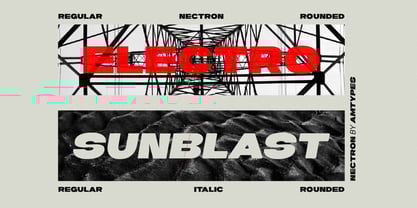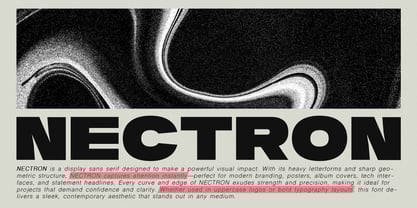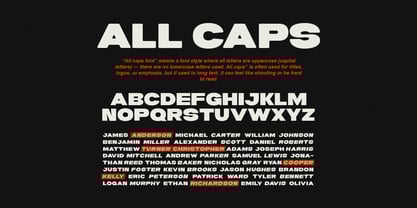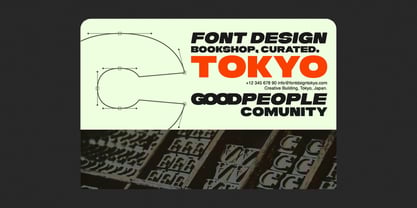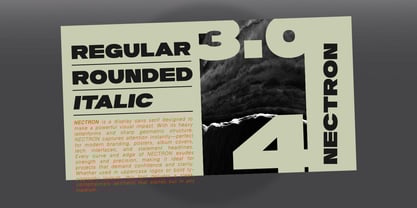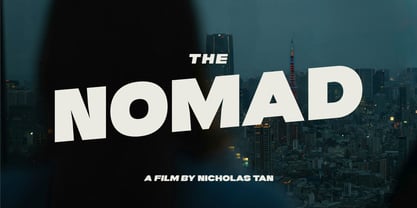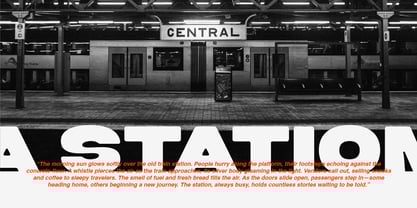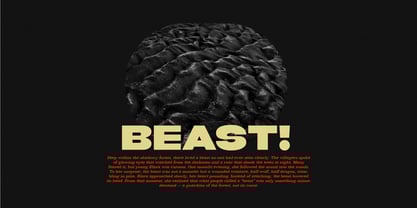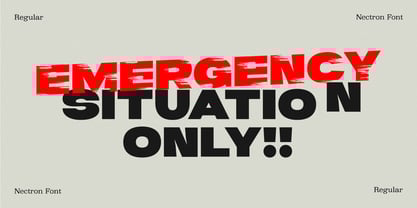
Nectron
by Angga Mahardika
The Nectron Font Family was designed by Angga Mahardika and published by Angga Mahardika. Nectron contains 4 styles and family package options.
NECTRON is a powerful display sans serif font designed to make an instant impact. With its strong geometric forms and sharp precision, this typeface embodies modern confidence and clarity. Perfect for branding, posters, tech interfaces, film titles, and editorial headlines, NECTRON delivers a bold, assertive look that stands out in any visual context. Every curve and edge of NECTRON exudes strength, balance, and precision, making it ideal for projects that demand a clean yet striking aesthetic. Whether used in uppercase logos or bold typography layouts, NECTRON commands attention while maintaining a sleek, contemporary feel. The font comes in multiple styles — Regular, Italic, and Rounded — allowing for versatile applications across design projects.
Nectron